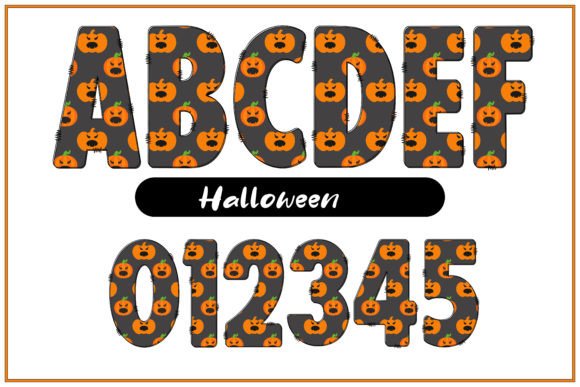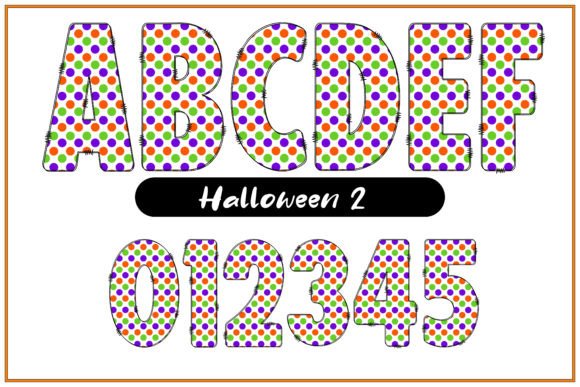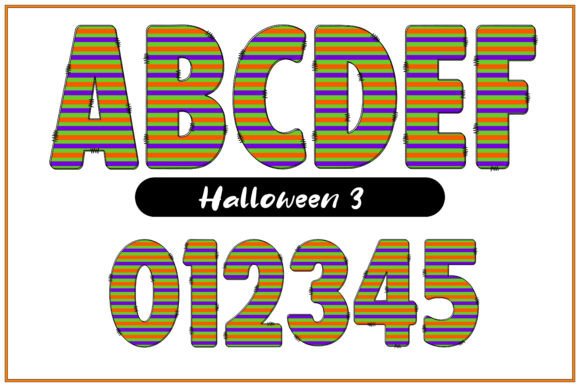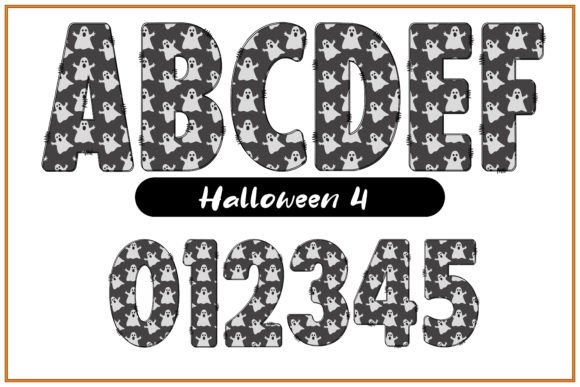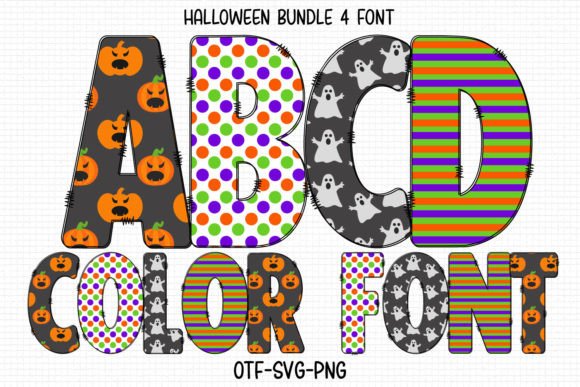
Unleash the Spooky Spirit: A Comprehensive Guide to Halloween Font
Halloween is just around the corner, and with it comes the excitement of creating spooky and fun designs for various projects. Whether you’re a designer, crafter, or simply a Halloween enthusiast, having the right font can make all the difference in bringing your ideas to life. This is where the Halloween Font comes in – a cute and fun Halloween-styled detailed colored font that’s perfect for a wide range of creative projects.
What is Halloween Font?
Halloween Font is a specially designed font that captures the essence of the spookiest day of the year. Its unique and playful style makes it an ideal choice for Halloween-related projects, such as posters, school designs, flyers, book and movie covers, and much more. The font’s detailed and colored design adds a touch of festivity and fun, making it perfect for designers and crafters looking to create eye-catching and engaging content.
Key Features of Halloween Font
- Cute and Fun Design: The Halloween Font boasts a unique and playful design that’s sure to add a touch of Halloween spirit to any project.
- Detailed and Colored: The font’s detailed and colored design makes it perfect for creating visually appealing content that stands out.
- Versatile: The Halloween Font can be used for a wide range of projects, from posters and flyers to book and movie covers.
Uses of Halloween Font
The Halloween Font is incredibly versatile and can be used for a variety of projects, including:
- Halloween Posters: Create eye-catching posters that showcase the Halloween spirit.
- School Designs: Add a touch of Halloween fun to school projects and designs.
- Flyers: Create spooky and fun flyers for Halloween events and parties.
- Book and Movie Covers: Use the Halloween Font to create spooky and engaging covers for books and movies.
- Crafting Projects: Add a touch of Halloween spirit to your crafting projects, such as cards, invitations, and decorations.
Tips for Using Halloween Font
Here are some tips for using the Halloween Font effectively:
- Experiment with Colors: The Halloween Font looks great in a variety of colors, so don’t be afraid to experiment and find the perfect combination for your project.
- Mix and Match: Combine the Halloween Font with other fonts to create a unique and eye-catching design.
- Pay Attention to Details: The Halloween Font’s detailed design makes it perfect for creating intricate and visually appealing content.
The Halloween Font is a fantastic addition to any designer’s or crafter’s toolkit. Its unique and playful design makes it perfect for creating spooky and fun content for a wide range of projects. With its ease of use, versatility, and detailed design, the Halloween Font is sure to become a go-to choice for anyone looking to add a touch of Halloween spirit to their creations.